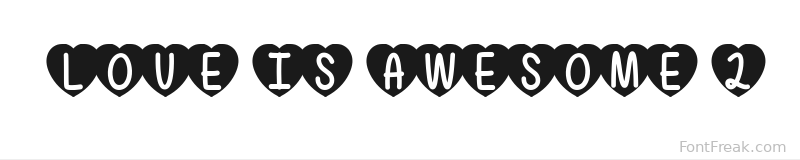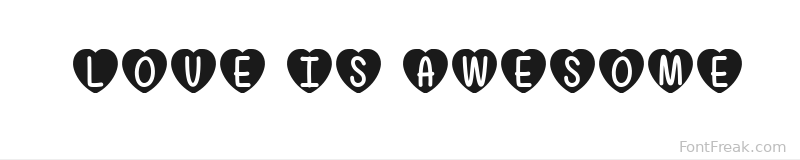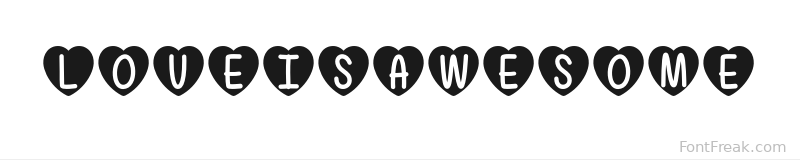
LoveIsAwesome2
Love Is Awesome
Love Is Awesome 2
LoveIsAwesome
About LoveIsAwesome2
The LoveIsAwesome2 font, created by Misti Hammers, embodies a unique blend of whimsy and charm, making it a delightful choice for various creative projects. This decorative typeface features a playful, hand-drawn style that captures the essence of love and affection. With its rounded edges and heart-shaped elements, the font conveys warmth and friendliness, making it perfect for anything that celebrates love and connection.
Visually, LoveIsAwesome2 showcases a medium stroke weight, allowing for excellent readability while still retaining its distinctive character. The playful spacing between letters gives the font a light and airy feel, while the incorporation of heart motifs adds a touch of romance and flair. These decorative elements ensure that the font stands out in any application, drawing the eye and creating an inviting atmosphere.
Ideal use cases for LoveIsAwesome2 include wedding invitations, where its charming style can perfectly encapsulate the joy of the occasion. Additionally, it works wonderfully for greeting cards, playful branding for cafés or bakeries, and even marketing materials that aim to evoke feelings of warmth and love. Graphic designers, small business owners, and content creators will find this font to be a valuable resource for adding a personal touch to their projects.